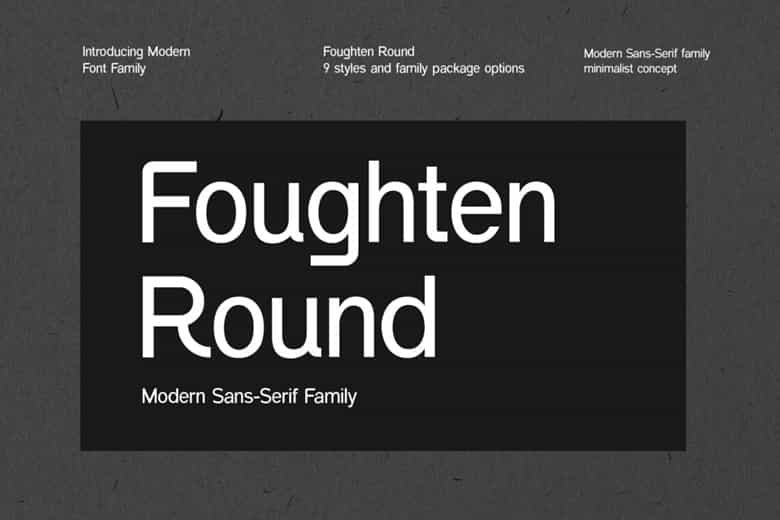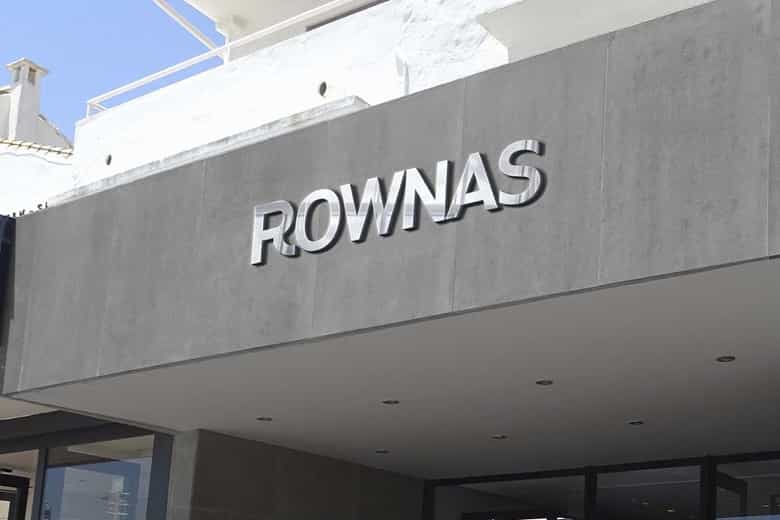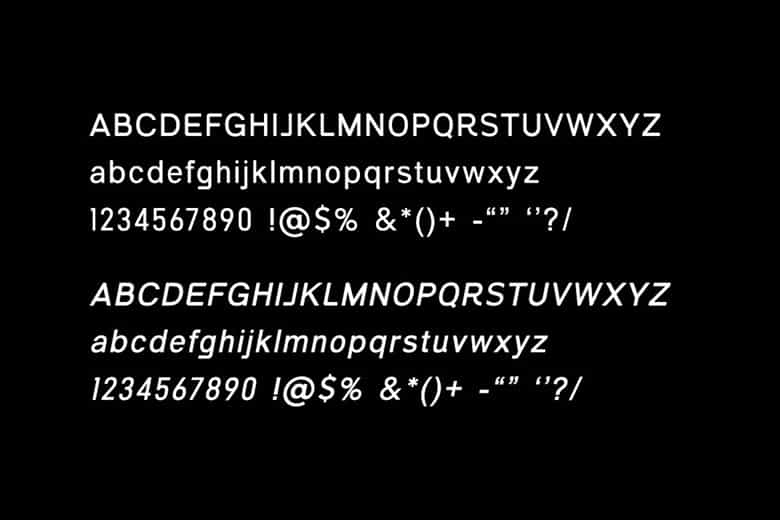
Discover Fougten Round Font Family, part of the Sans Serif collection—a versatile and unique font perfect for adding a personal touch to your projects. Download it for free and enjoy crafting designs with style, from invitations to social media posts. This font is available exclusively for personal use, giving you the freedom to create without limits. Unlock your creativity with Fougten Round Font Family today!
Foughten Round is a sans serif font family. It’s looks classy elegant and stylish that gives it a modern touch. This font is perfect for so many different designs including stationery, logo, wedding, quotes, magazine or book covers, website, branding, and much more.